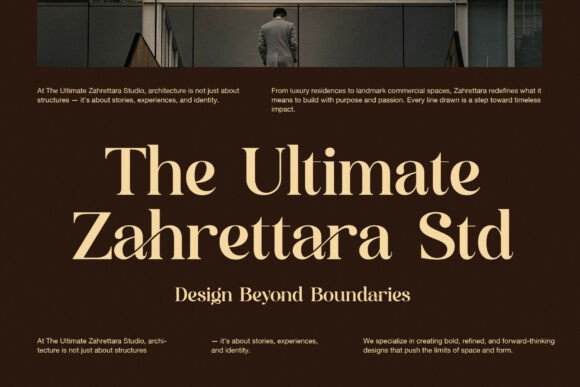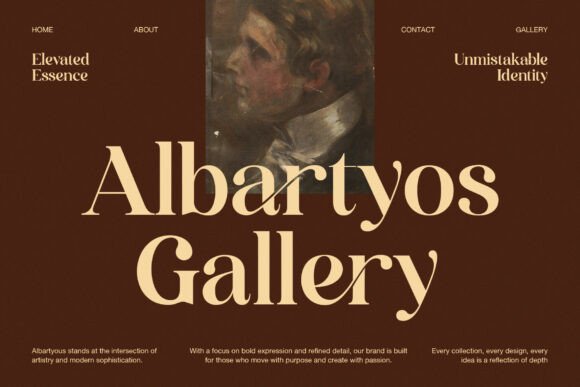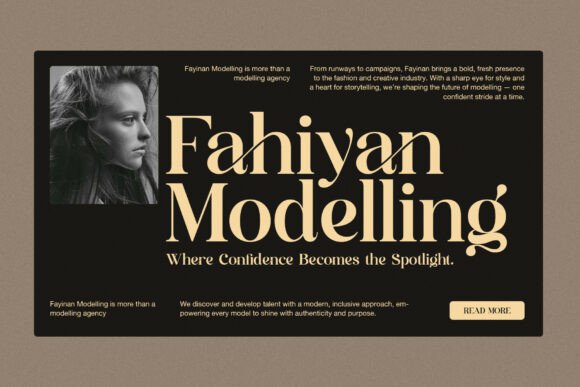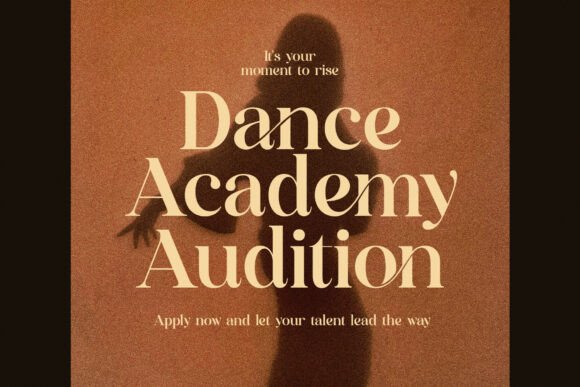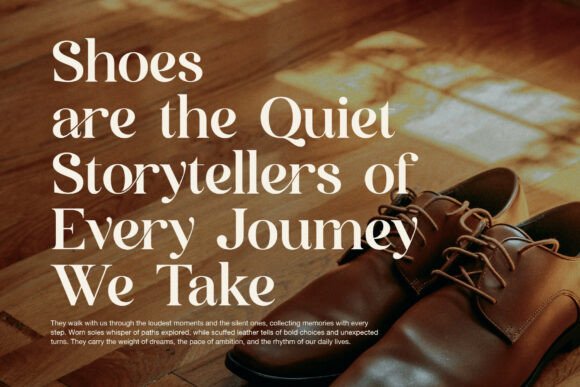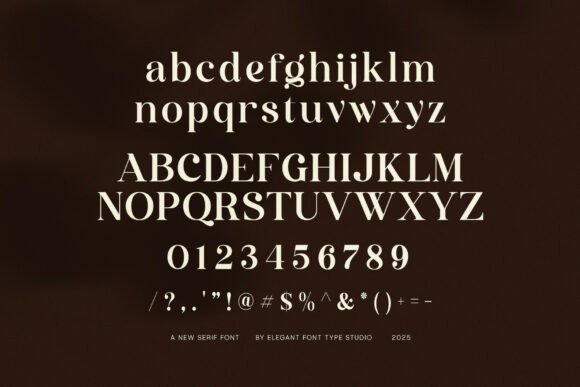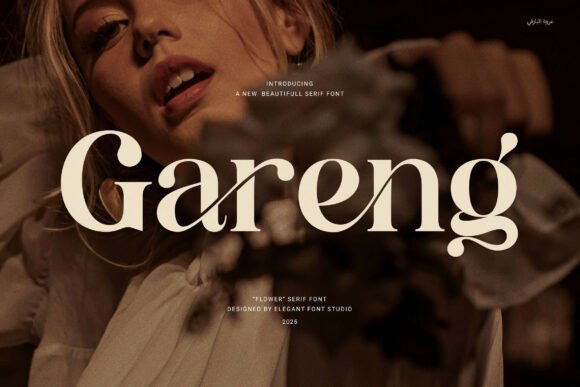
Introducing Gareng Font: The Perfect Blend of Modernity and Classic Elegance
In the world of typography, finding the right font can make all the difference in the success of a design project. For designers and crafters seeking a typeface that embodies both modern sophistication and timeless beauty, Gareng Font is an exceptional choice. This modern serif typeface skillfully combines clean structure with classic elegance, making it an invaluable asset for any design endeavor.
Precision-Designed for Style and Clarity
Gareng Font is designed with precision, boasting proportional shapes and sharp details that set it apart from other typefaces. Its carefully crafted features make it an ideal choice for designers who value both style and clarity. Whether you’re working on a digital platform or a print material, Gareng’s smooth curves and strong lines ensure that it looks polished and refined at any size.
Versatility Across Different Styles
One of the standout qualities of Gareng Font is its versatile form. This adaptability allows designers to apply it across various styles and projects while maintaining a cohesive visual identity. From elegant editorial designs to sophisticated branding materials, Gareng seamlessly integrates into any design aesthetic, ensuring consistency and professionalism.
Elegance and Legibility: The Role of Ligatures
Gareng Font takes elegance and legibility to the next level with its functional ligatures. These ligatures create a smooth and stylish flow between letters, enhancing the overall readability of the text. This thoughtful design detail not only improves legibility but also adds a touch of personality to the text, making it feel more dynamic and complete.
Applications of Gareng Font
Gareng Font’s versatility and elegance make it suitable for a wide range of applications. Here are some of the areas where Gareng truly shines:
- Digital Platforms: For websites, mobile apps, and social media graphics, Gareng’s clean and modern design ensures that your digital content stands out with style and sophistication.
- Print Materials: In brochures, magazines, posters, and business cards, Gareng brings a level of elegance and professionalism that is hard to match.
- Branding and Identity: For logos, product packaging, and brand guidelines, Gareng’s unique blend of modernity and classic beauty helps create a memorable and impactful brand identity.
Why Choose Gareng Font?
With so many typefaces available, why should designers and crafters choose Gareng Font for their projects? Here are a few compelling reasons:
- Unique Aesthetic: Gareng offers a distinctive look that sets it apart from more traditional serif fonts, making it perfect for designers looking for something fresh yet elegant.
- High Legibility: Its well-designed letterforms and inclusion of ligatures ensure that text remains clear and easy to read, even at smaller sizes.
- Versatility: Gareng’s adaptability across different mediums and styles makes it a valuable addition to any designer’s toolkit.
Gareng Font represents a harmonious blend of modernity and classic elegance, making it an excellent choice for designers and crafters seeking a typeface that offers both style and substance. Its precision design, versatility, and thoughtful details like ligatures make it a standout in the world of typography. Whether you’re working on digital projects, print materials, or branding initiatives, Gareng Font is poised to elevate your designs to new heights of sophistication and professionalism.